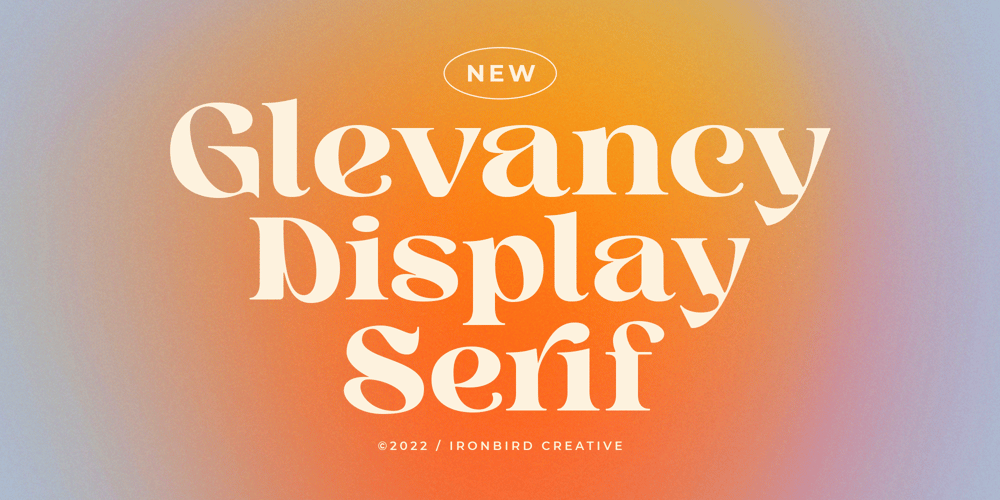
Glevancy Font Family was designed by Septianto Nugroho and published by Ironbird Creative. Glevancy contains 1 styles and family package options. Glevancy is a stylish display and bold serif with high contrast, making it a versatile and elegant typeface. With a touch of vintage vibes, it will make your presentation looks amazing and sophisticated! You can use this typeface for logo, poster, event, or your social media post.Features Uppercase & Lowercase Number & Symbol Multi language Ligatures Alternates If you have any questions, please contact (ironbirdcreative@gmail.com)